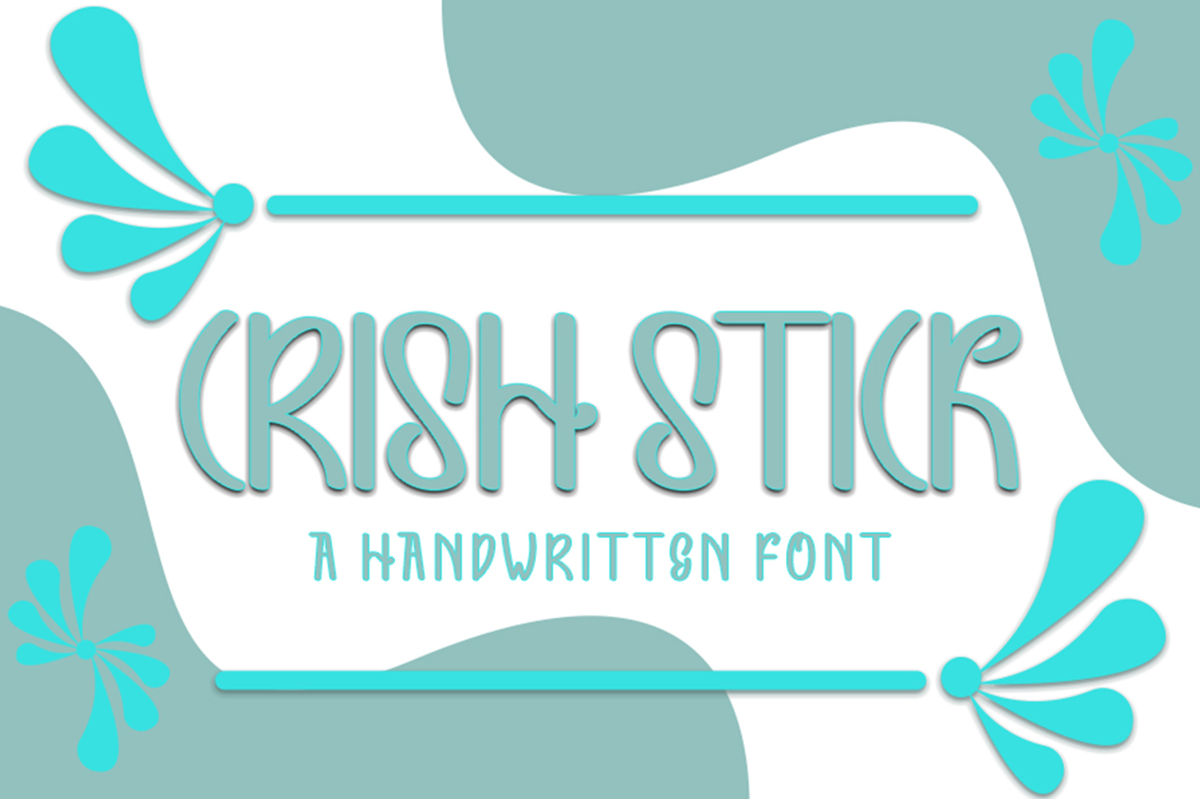
Crish Stick Free Font
Crish Stick Free Font is a neat lettered Script Handwritten font, created with the help of a brush pen. Its casual style will appeal to a wide range of crafty ideas, from letterheads and titles to stationery. This free typeface was designed by a talented Inermedia STUDIO. If you like it don’t forget to check out the full version.